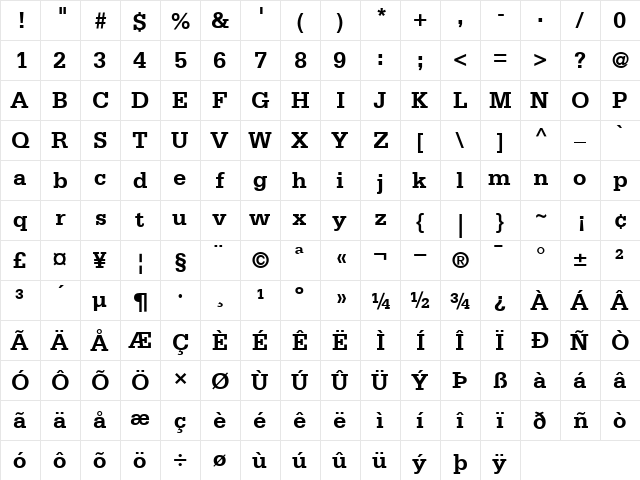
Serifa65 Bold Font Preview
Serifa65 Bold
Design Context for Serifa65 Typeface
Serifa65 brings classic typographic sensibility to the table — its serifs and measured letterforms reflect centuries of print heritage. Its bold stroke weight gives it real presence on the page.
Pro Tip: Use Serifa65 for editorial body copy and considered headline work. Pair with a neutral sans for UI elements or captions to create a classic hierarchy.